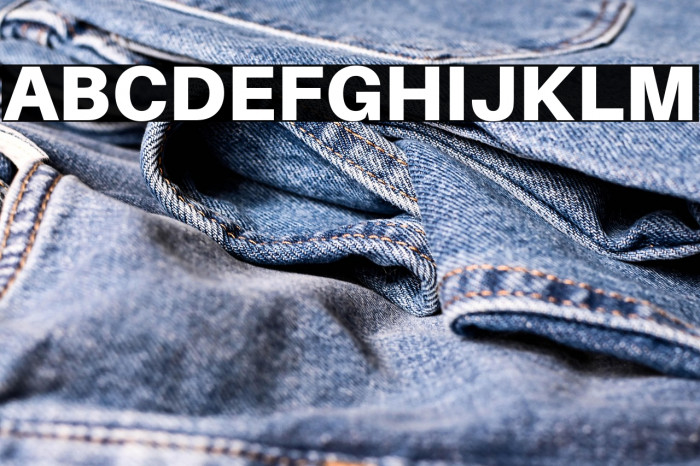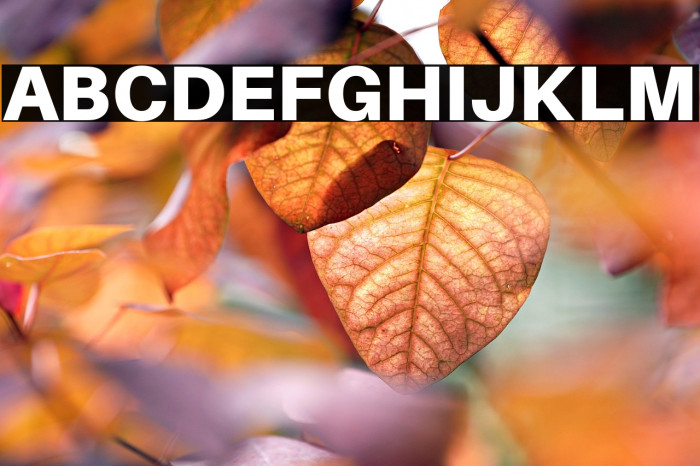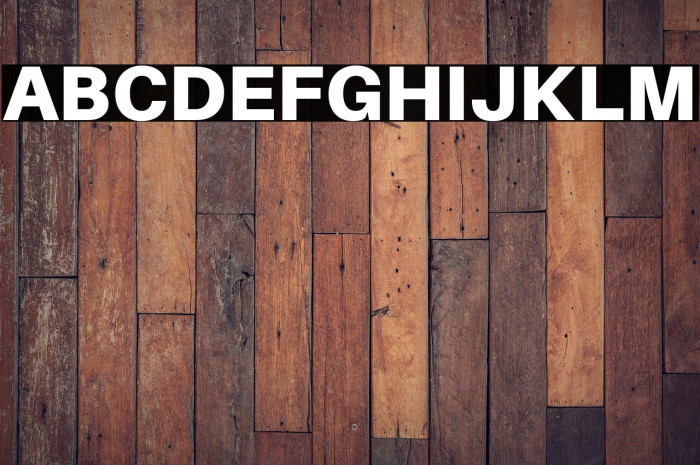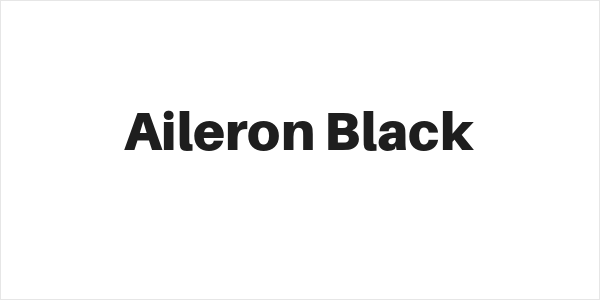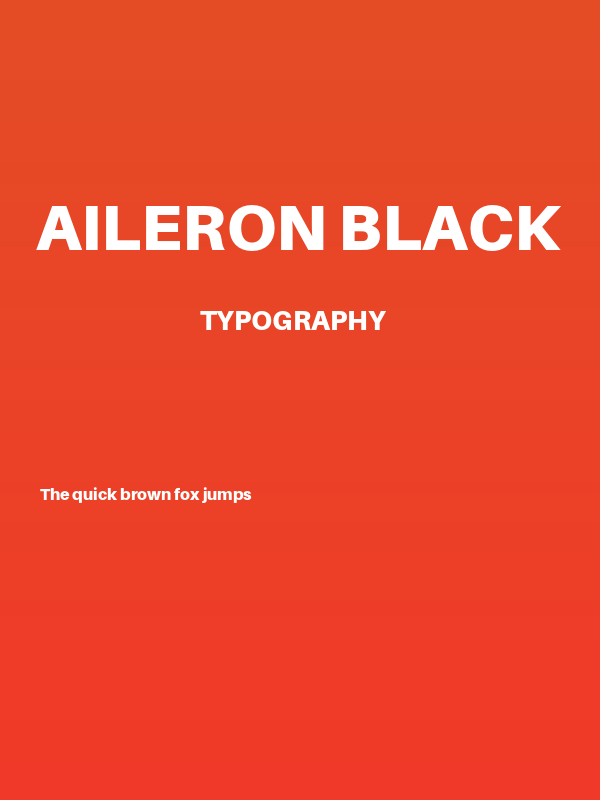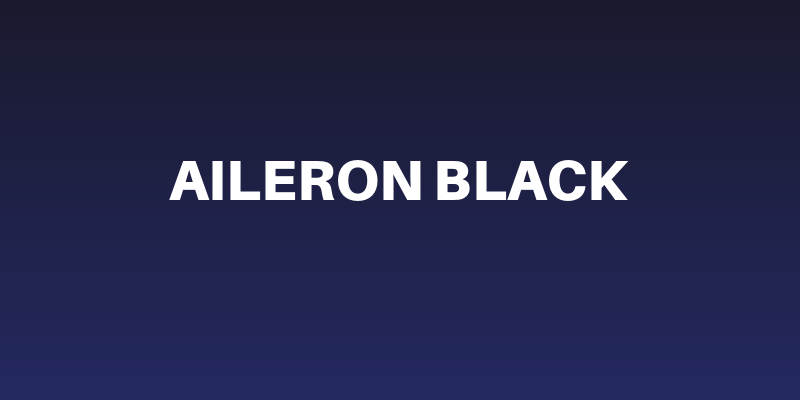
Aileron Black Font
Aileron Black Description
This font features a bold and modern sans-serif style with clean lines and a strong presence. The characters are uniformly thick, providing a consistent and powerful look across both uppercase and lowercase letters. The numerals and special characters maintain the same boldness, ensuring readability and impact. The overall design is straightforward, making it suitable for a variety of applications where clarity and emphasis are needed.
| Proposed Projects | Ideal for headlines, posters, branding materials, and any project requiring a bold statement. |